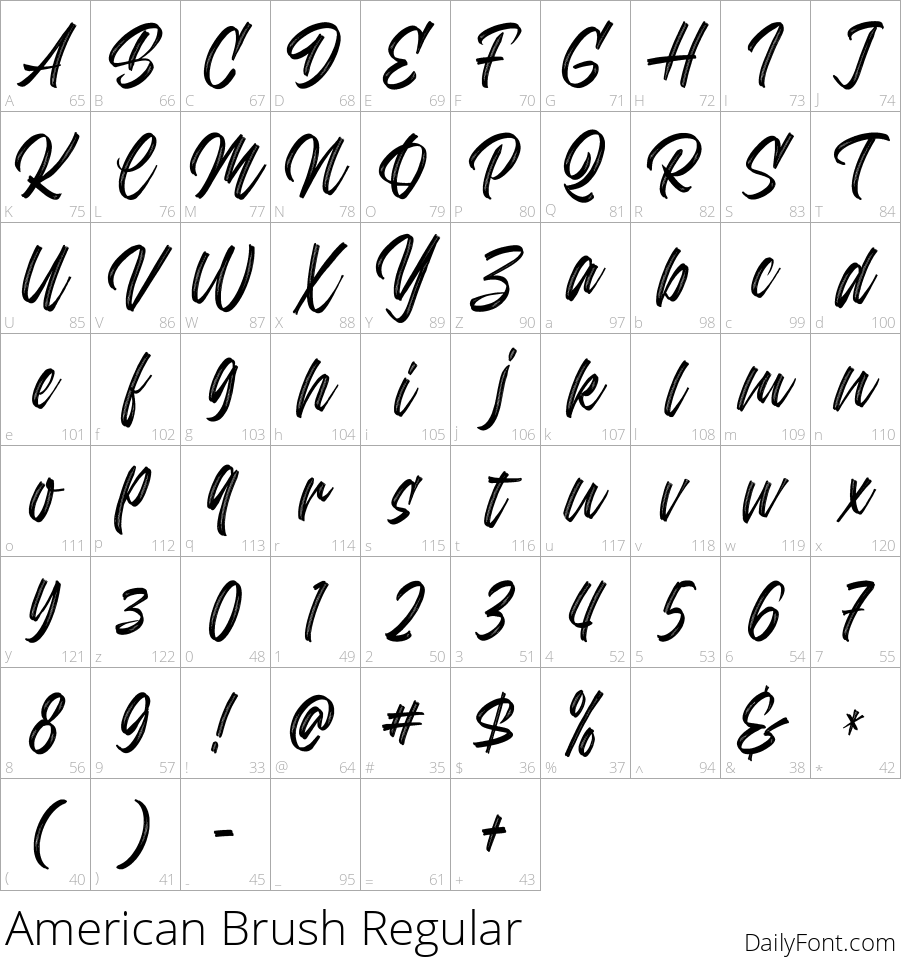
American Brush
Seeking a font that exudes elegance and whimsy? Look no further than our beloved script font with brush-style flair! This charming font is all about capturing the essence of handwritten charm, with flowing strokes and organic textures that evoke a sense of spontaneity and playfulness.
Whether you're crafting a logo that demands attention or designing an invitation that requires a touch of personality, this font's unique blend of sophistication and informality makes it the perfect choice. The subtle imperfections and natural texture of the brush-style design add a handmade quality that will make your designs stand out from the crowd.
With its versatility and charm, this script font is ideal for a wide range of applications, from luxury branding to creative projects that require a dash of humor and personality. So why settle for an ordinary font when you can have a conversation starter? Get ready to bring some American Brush magic to your next design project!